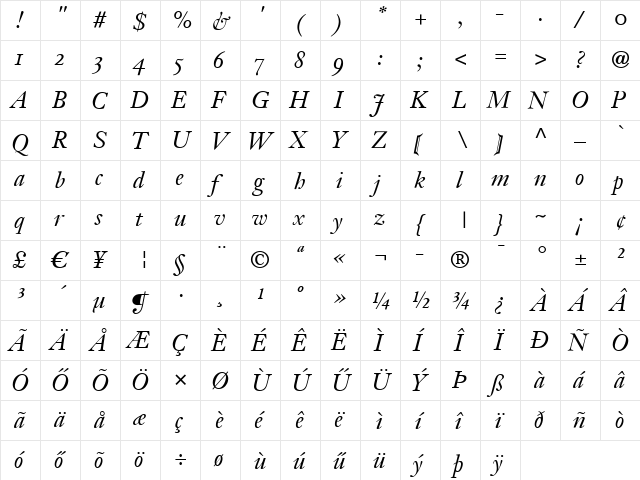
Tyrnavia Italic
Design Context for Tyrnavia Typeface
Tyrnavia is a composed and adaptable typeface that performs quietly and consistently across a wide range of design contexts. The slanted form adds forward momentum and visual energy.
Pro Tip: Try Tyrnavia for annotation and caption copy alongside an upright companion — the contrast in angle creates a dynamic but ordered typographic system.